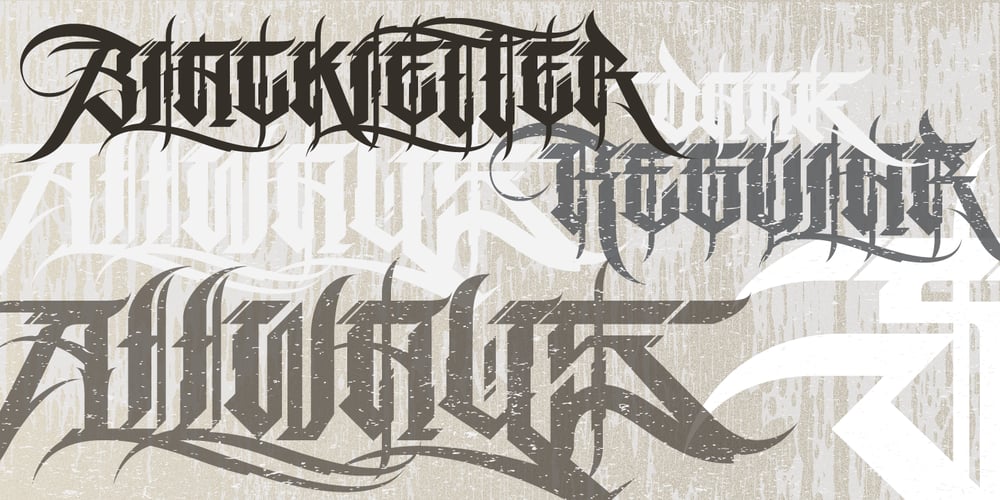
Rase Grimm Font Family was designed by Matthew Napolitano and published by Graffiti Fonts. Rase Grimm contains 3 styles and family package options. The Grimm family is a blackletter inspired graffiti style built for headline and display. The family includes 3 variants: Grimm Regular & Grimm Curves both utilize traditional upper & lowercase letters while the Grimm Fat variation is an all-caps style. All 3 styles include initial, terminal & isolated letter variations as contextual alternates as well as a number of stylistic alternates, ligatures & other embellishments.